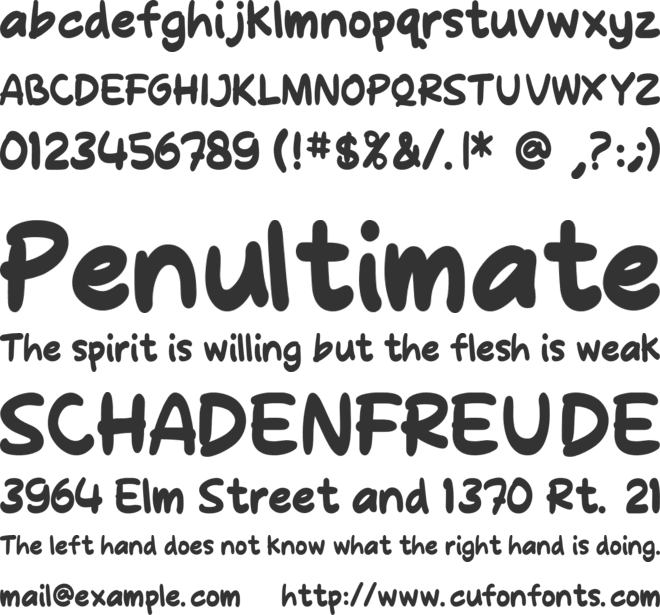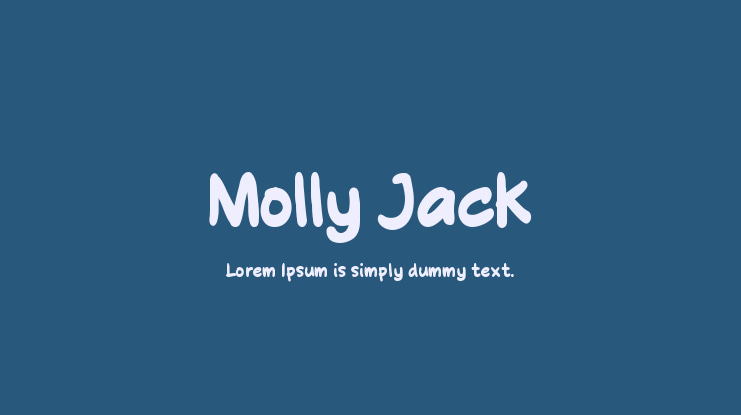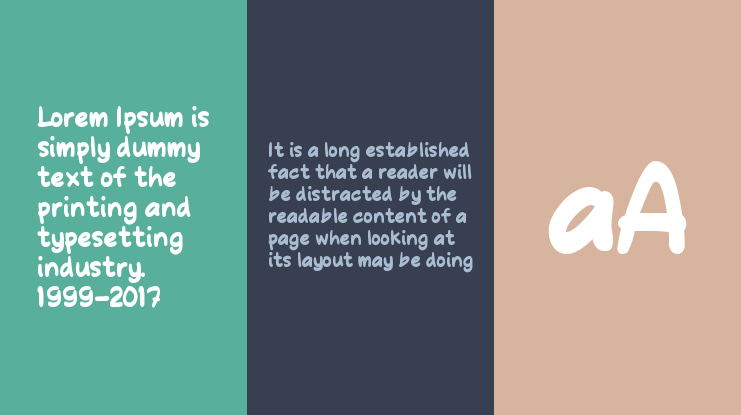
Molly Jack Font
Ketapel Creative
Introducing! Molly Jack Font is Awesome playful, unique comic font with lots of personality . Molly Jack is perfect for branding, logos, label, brochure, childrens apparel, t-shirt, post cards, packaging design, social media, poster, games, stationery, etc. Its designed & shared by Ketapel creative Available in uppercase / lowercase letters, standard numbers and punctuation.